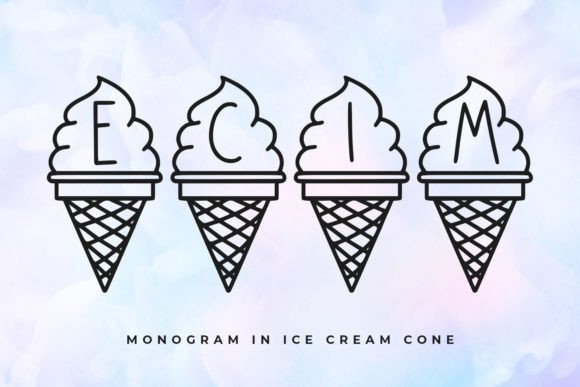
Ecim Monogram Font: The Sweetest Addition to Your Design Collection
Are you on the hunt for a font that’s as sweet as it is stylish? Look no further than the Ecim Monogram Font, a charming typeface that’s sure to delight. This adorable font is designed to resemble an ice cream cone, making it the perfect addition to your design collection. In this article, we’ll dive into the world of Ecim Monogram Font, exploring its features, uses, and benefits.
What is Ecim Monogram Font?
Ecim Monogram Font is a unique and creative typeface that’s inspired by the classic ice cream cone. This font is designed to be used for a variety of design projects, from branding and logos to quotes, t-shirt designs, tote bag designs, cards, banners, and social media graphics.
The Ecim Monogram Font is a monogram font, which means it’s designed to be used in combination with other letters to create a custom monogram. This font is perfect for designers who want to add a personal touch to their designs.
Uses of Ecim Monogram Font
The Ecim Monogram Font is a versatile typeface that can be used for a wide range of design projects. Here are some of the most popular uses of this font:
- Branding: Use Ecim Monogram Font to create custom logos and branding materials that are sure to stand out.
- Quotes: Add a touch of whimsy to your quotes and sayings with Ecim Monogram Font.
- Logos: Create custom logos that are both stylish and memorable.
- T-shirt designs: Use Ecim Monogram Font to create fun and quirky t-shirt designs that are perfect for casual wear.
- Tote bag designs: Add a personal touch to your tote bag designs with Ecim Monogram Font.
- Cards: Use Ecim Monogram Font to create custom greeting cards that are sure to impress.
- Banners: Create eye-catching banners with Ecim Monogram Font that’s perfect for events and promotions.
- Social media: Use Ecim Monogram Font to create engaging social media graphics that are sure to stand out.
Benefits of Ecim Monogram Font
The Ecim Monogram Font offers a range of benefits that make it a great addition to your design collection. Here are some of the most significant advantages of using this font:
- Unique and creative: Ecim Monogram Font is a one-of-a-kind typeface that’s sure to make your designs stand out.
- Versatile: This font can be used for a wide range of design projects, from branding and logos to quotes and social media graphics.
- Cute and playful: This font has a playful and whimsical feel that’s perfect for designs that require a touch of personality.
Tips for Using Ecim Monogram Font
Here are some tips for getting the most out of Ecim Monogram Font:
- Experiment with different colors: Ecim Monogram Font looks great in a variety of colors, so don’t be afraid to experiment and find the perfect hue for your design.
- Pair with other fonts: This font pairs well with other sans-serif fonts, so try combining it with a bold font for a striking contrast.
- Use it sparingly: Ecim Monogram Font is a bold and playful font, so use it sparingly to avoid overwhelming your design.
In conclusion, Ecim Monogram Font is a unique and creative typeface that’s perfect for designers who want to add a touch of personality to their designs. With its playful and whimsical feel, this font is sure to delight. Whether you’re looking to create custom logos, quotes, t-shirt designs, or social media graphics, Ecim Monogram Font is a great choice.